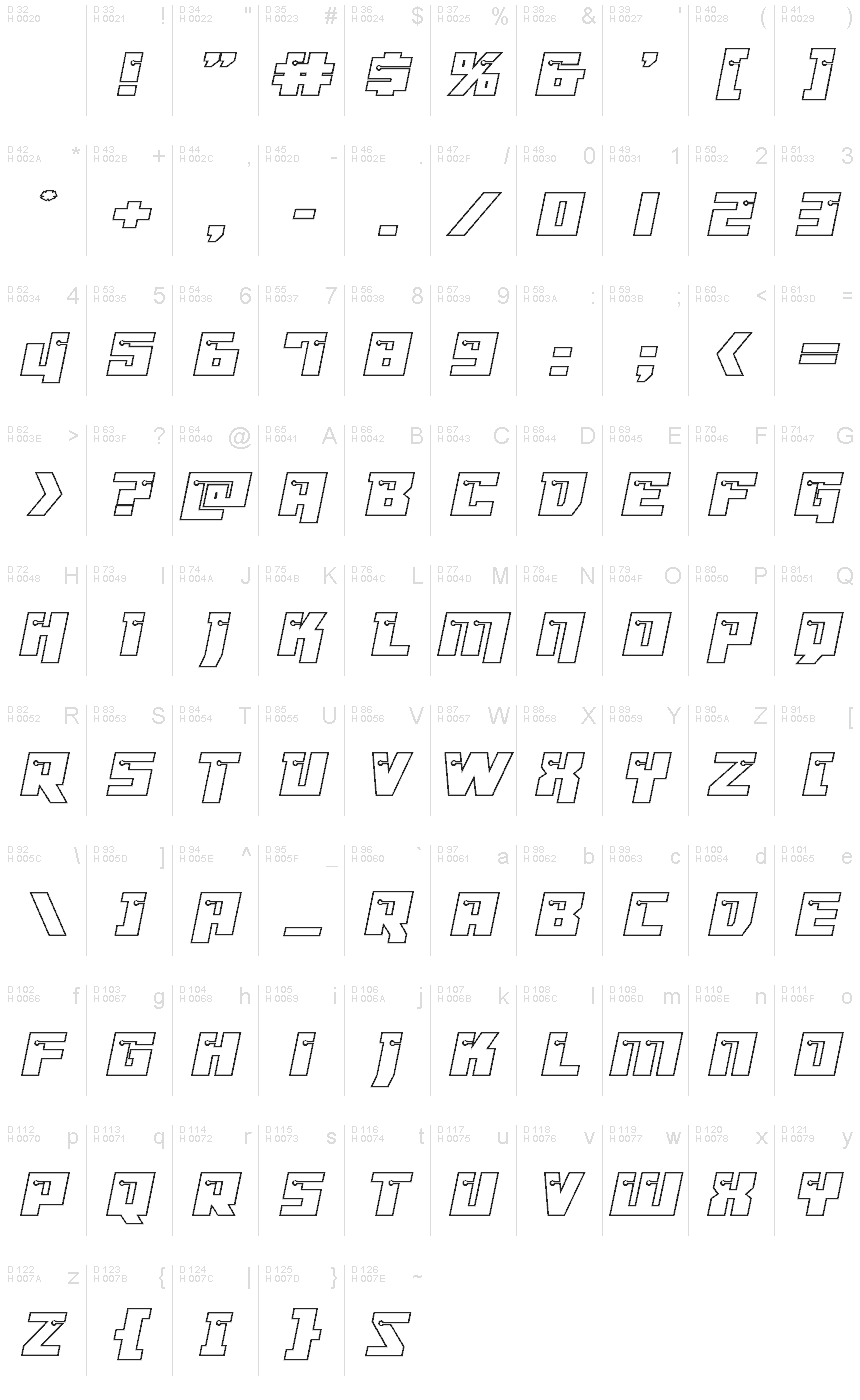
Dangerbot Expanded Outline
Dangerbot Expanded Outline font is a futuristic display font by Iconian Fonts designed with sharp-edged symbols and geometric figures. Not missing angular elements, the techno-inspired typeface features an expanded width and outlined characters. It is a distinct variation of the Dangerbot font family emphasisizing every mark’s shape.
Mostly sci-fi, techno, and similar design projects will get enhanced by this free display typeface. Use it for textbooks or magazine titles where new technology topics are introduced to new readers. Video game interfaces can be taken to the next level as well when you apply Dangerbot Expanded Outline there!